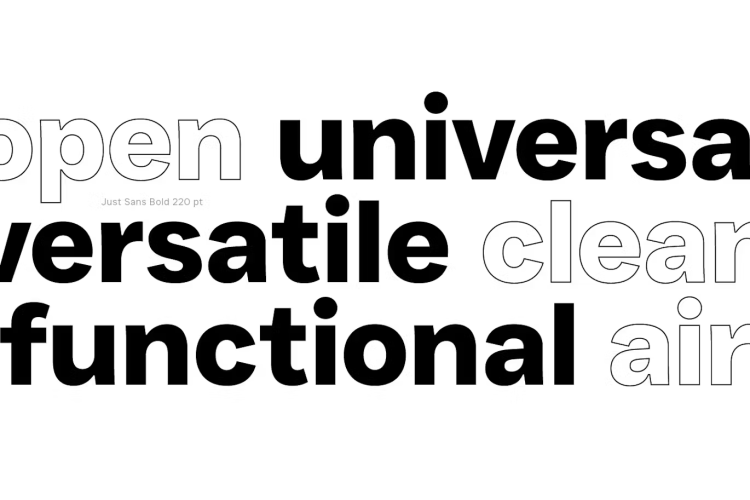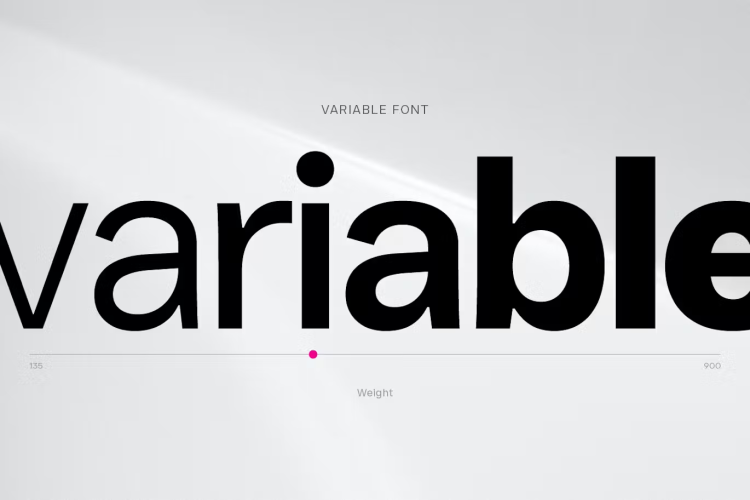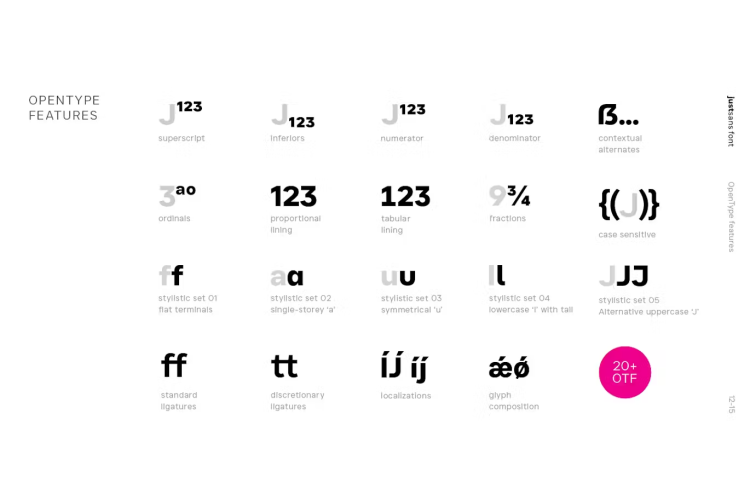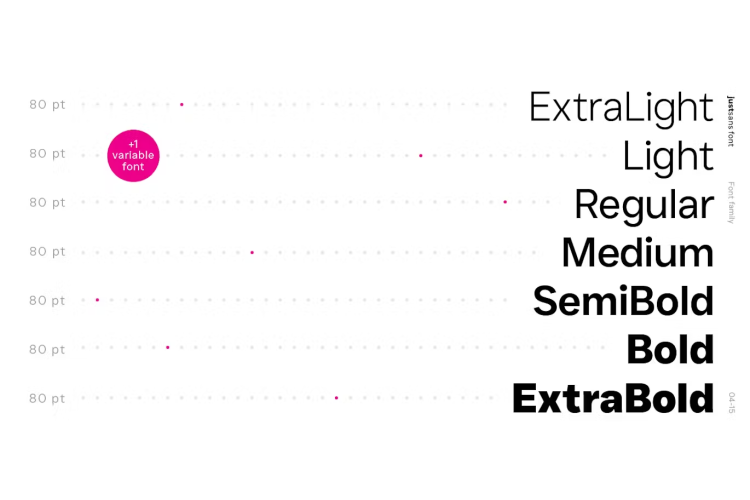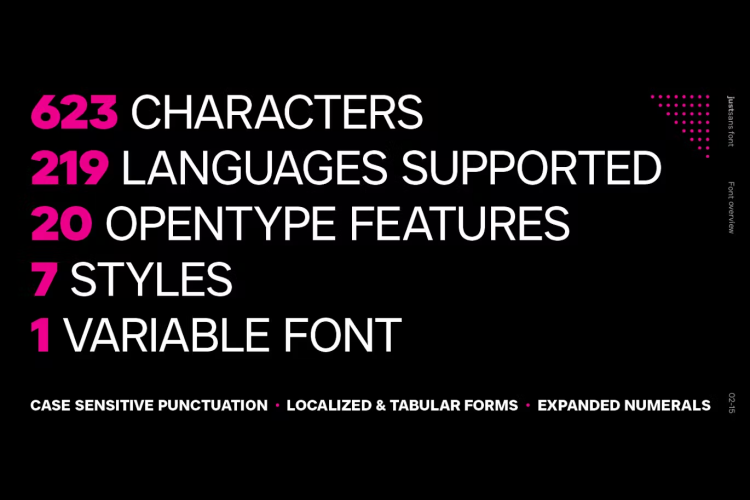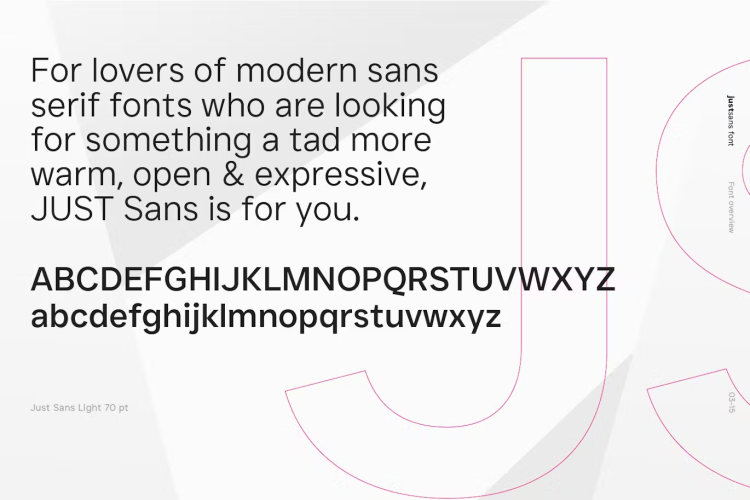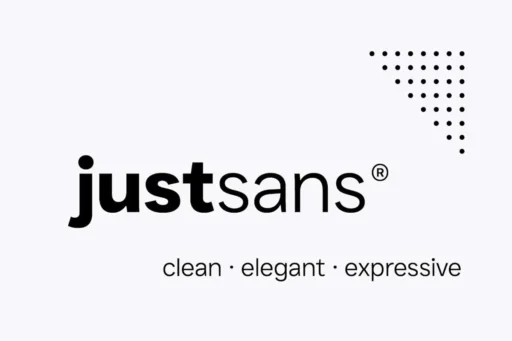
Just Sans Font
Just Sans is a modern and friendly sans serif font family that offers the best of both worlds, the warmth of the modernist style and the geometric optics of today’s worl…
Just Sans is a modern and friendly sans serif font family that offers the best of both worlds, the warmth of the modernist style and the geometric optics of today’s world. Designed to be a professional, modern, geometric sans serif, and the typeface has a nice balance of being both serious and friendly. It neither alienates the reader with technical jargon nor an over-enthusiastic tone, and yet it is not devoid of warmth nor familiarity.
The style of the font is relatively modern, as the character set is rather open, with enough breathing space and a fair amount of width. It has sharp angled terminals to give a unique grip on the device while giving it an aesthetic and cute appeal. While being a contemporary alternative sans serif with a distinct character, Just Sans is a no-nonsense font that won’t let you down. It has seven styles of weight, a complete set of Latin extended character sets, garnet kerning, and variable font for utmost usability.
Just Sans consists of hand-hinted web fonts that are specifically designed for clarity and readability on screens, which makes it perfect for use on websites, logos, branding, headlines, paragraphs, interfaces, signs, packaging, posters, and more, especially for tech, new media, architecture, fashion, and design industries. It is a versatile typeface that has a unique style that gives it the stamp of originality, thus making the family a valuable addition to any type library especially for those who have an appreciation of fine numbers.
If you are a fan of modern sans serif fonts and are looking for something less cold, more inviting, and emotional, Just Sans is ideal for use.
Where Just Sans Font works best
Just Sans Font stays legible at small sizes, which makes it a strong choice for navigation, buttons and dashboards in web design and app interfaces.
Clean sans serifs like Just Sans Font are the default language of SaaS, fintech and product branding.
What is Just Sans Font good for?
Just Sans Font is a Sans Serif Fonts typeface tagged Friendly, Geometric, Modern, Playful. It works well for headlines, logos, posters, social media graphics and branding projects that need a distinctive sans serif fonts look.